If you want a design to stop viewers in their tracks, heavy fonts are the essential ingredient. Their characteristic boldness and weighty lines give them the raw visual power to instantly dominate any canvas.
They are engineered for moments where your message absolutely must be unmissable and assertive. More than just attention magnets, these typefaces fundamentally influence how your audience processes the underlying emotion.
They are perfect for injecting a headline with unmistakable confidence or amplifying the pressing nature of any promotional copy.
Explore our expertly compiled list of the best free, heavy, and ultra-bold options currently on the market. Organized across categories like serif, slab, sans-serif, and display, this collection is your definitive source for high-impact typography!
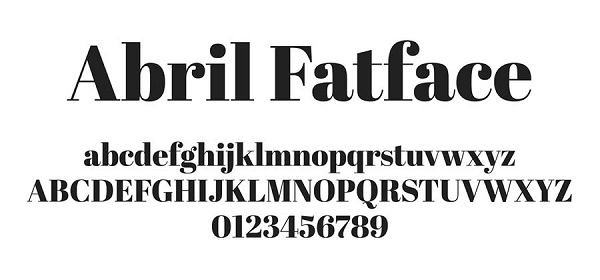
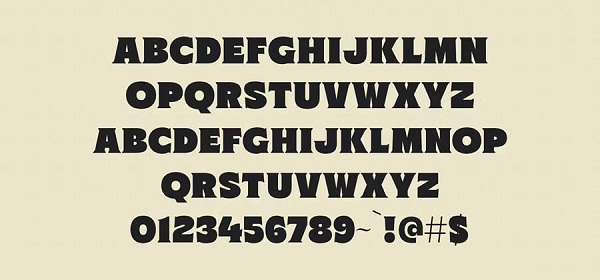
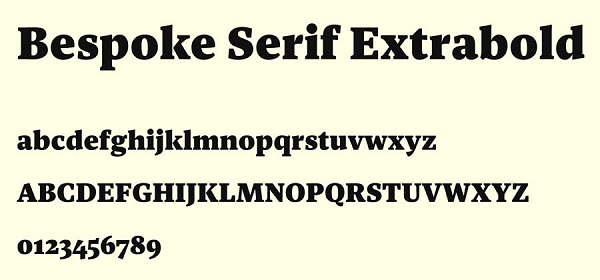
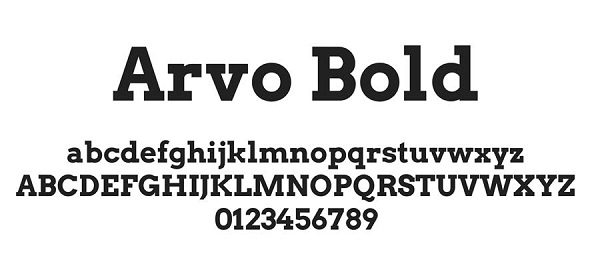
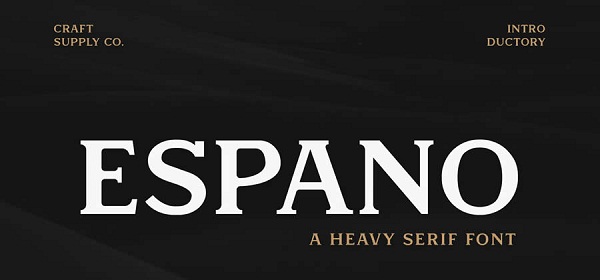
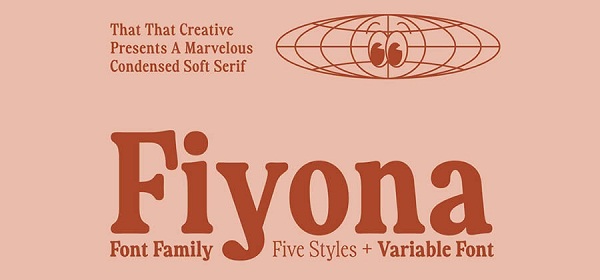
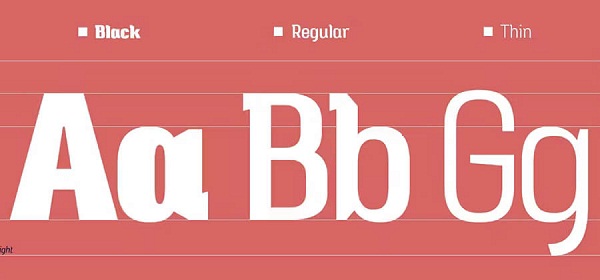
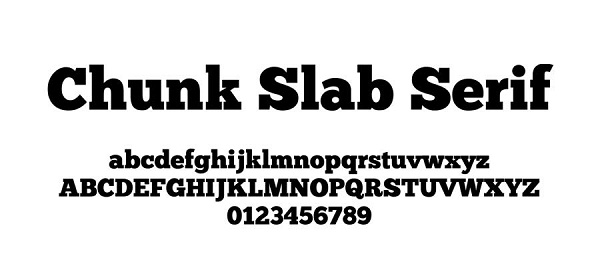
Toma Sunn Strong Slab Serif Font
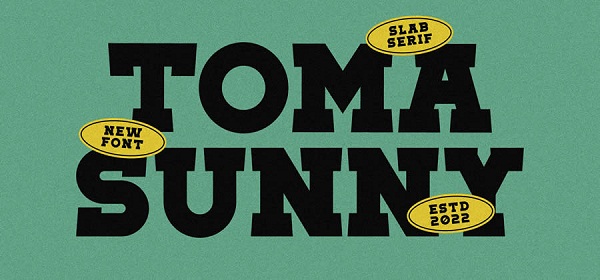
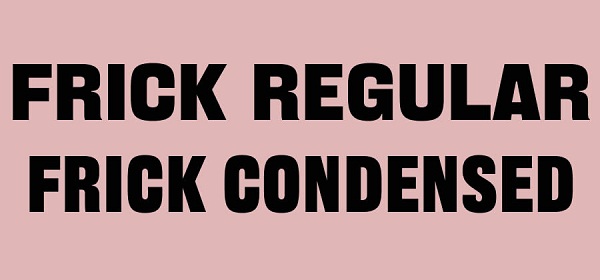
Franie Geometric Sans-Serif Font
Bemio Ultra-Bold Sans Serif Font
Outage Bold Geometric Sans-Serif
Fredoka Round & Bold Sans-Serif
TypoGraphica Geometric Bold Font
Clash Grotesk Sans Font Family
Finder Heavy All-Caps Sans-Serif
Blogh Quirky Display Sans-Serif
Chatlong All-Caps Display Font
Mosko Mappa Retro Display Font